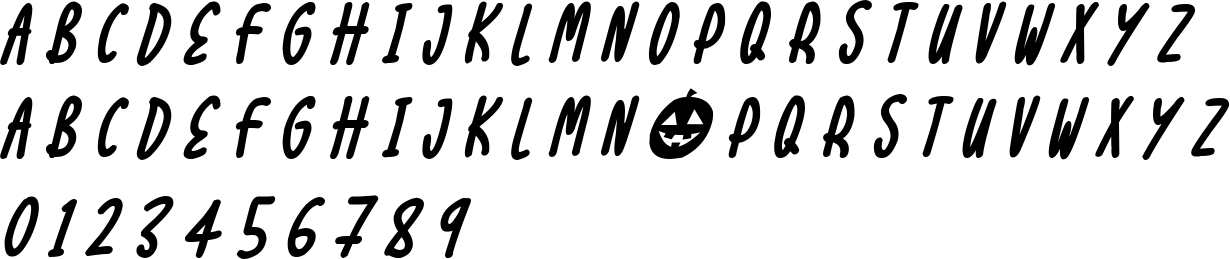
Halloween Treats
Halloween Treats Font
About the Halloween Treats Font
Halloween Treats is a spooky yet cute Halloween font. Perfect for comic and cartoon crafts, and for getting into the Halloween mood!